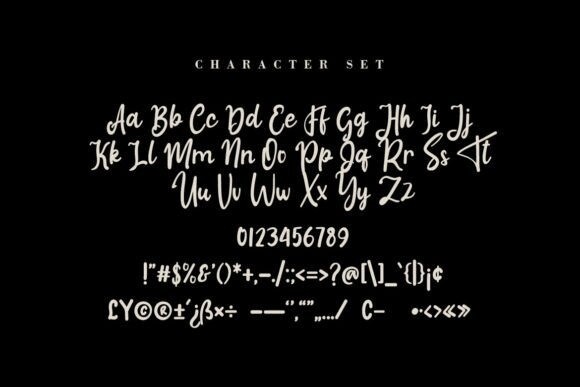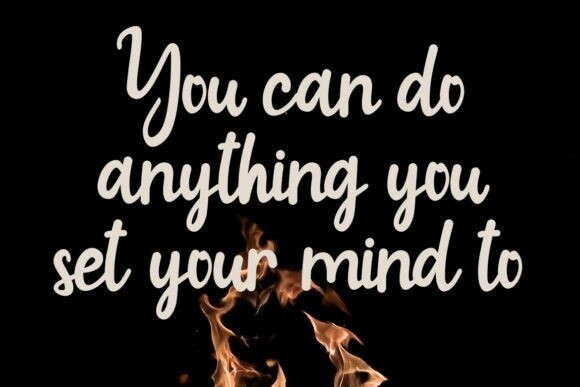
Shally Font
Designer: Skiiller Studio
Shally Font – Handwritten script with a natural flow and beautiful style. Shally is perfect for invitation design projects, prewedding, branding, logos, wedding designs, social media posts, advertisements, product packaging, product design, labels, photography, watermarks, invitations, stationery, and any project that requires handwriting tastes .